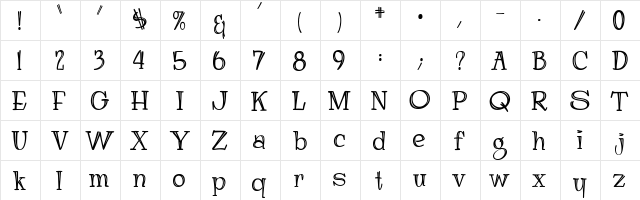
2 WhoopT Do DNA Regular
Design Context for 2 WhoopT Do DNA Typeface
2 WhoopT Do DNA is a composed and adaptable typeface that performs quietly and consistently across a wide range of design contexts.
Pro Tip: Pair 2 WhoopT Do DNA with a font of contrasting weight or personality to build a more expressive typographic hierarchy.